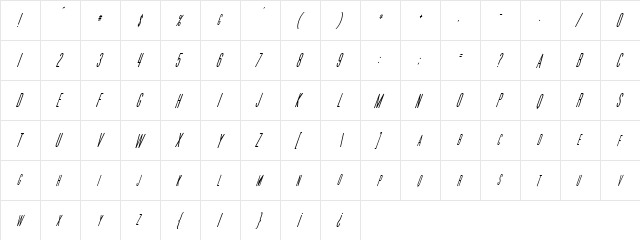
Movie Poster Condensed Italic Font Preview
Design Context for Movie Poster Condensed Typeface
Movie Poster Condensed offers clean, dependable letterforms without strong stylistic allegiance, making it a practical choice for designers who need flexibility. The slanted form adds forward momentum and visual energy. The condensed width makes it efficient for tight spaces without sacrificing legibility.
Pro Tip: Try Movie Poster Condensed for annotation and caption copy alongside an upright companion — the contrast in angle creates a dynamic but ordered typographic system.